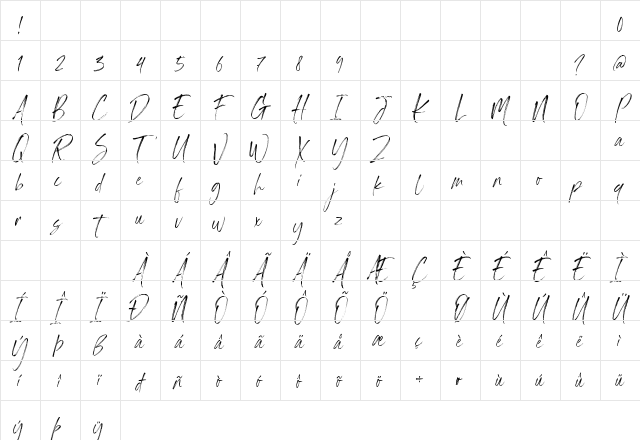
Light Brighter is a composed and adaptable typeface that performs quietly and consistently across a wide range of design contexts. Its slender proportions lend an understated elegance to any composition.